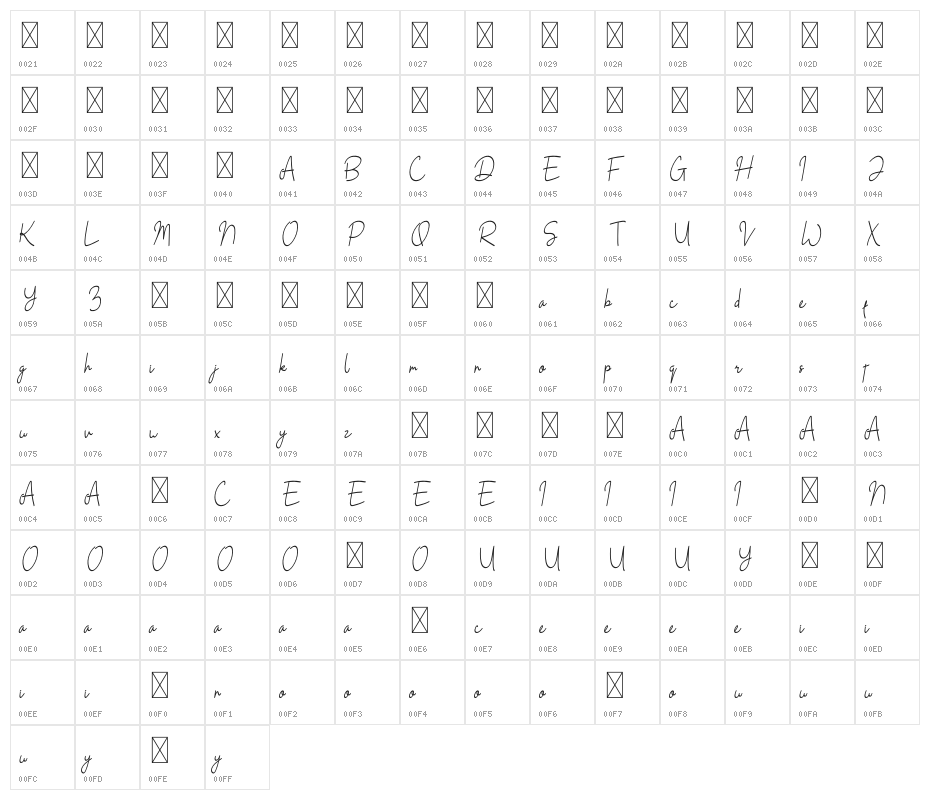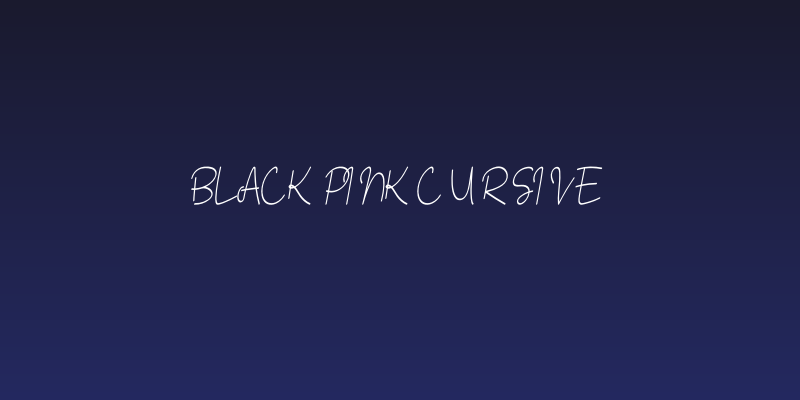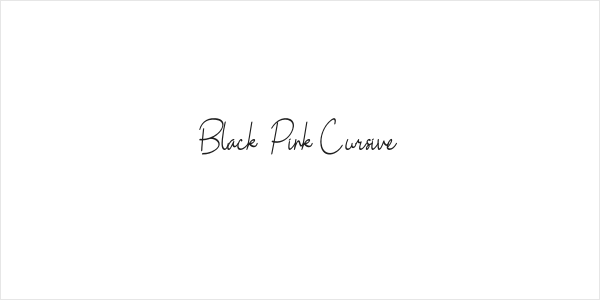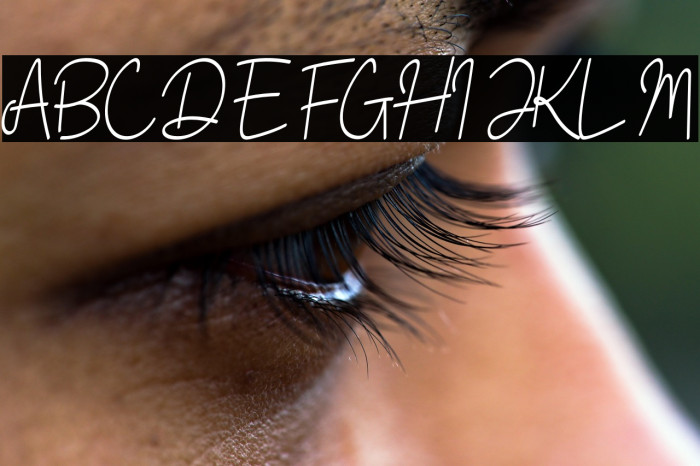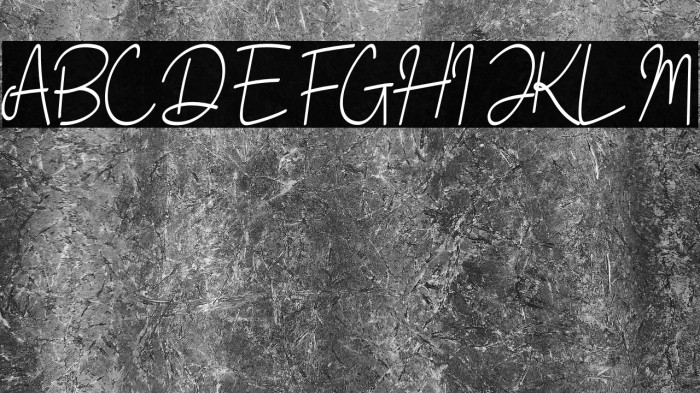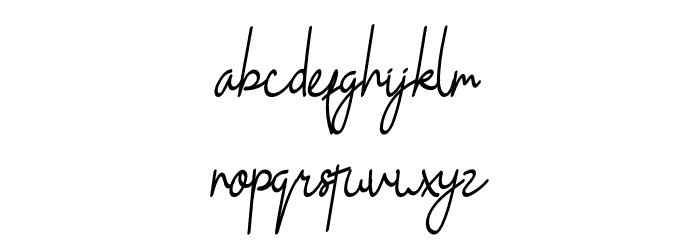
Black Pink Cursive Font
Black Pink Cursive Description
This font features a playful and elegant cursive style, characterized by its fluid and connected letterforms. The uppercase letters are tall and slender, with a slight slant that adds a dynamic feel. The lowercase letters maintain a consistent flow, enhancing readability while preserving the decorative nature of the script. The overall design is light and airy, making it suitable for projects that require a touch of sophistication and creativity. The font's unique style is further accentuated by its smooth curves and delicate strokes, which give it a modern yet timeless appeal.
| Proposed Projects | Ideal for wedding invitations, greeting cards, branding, and social media graphics. |